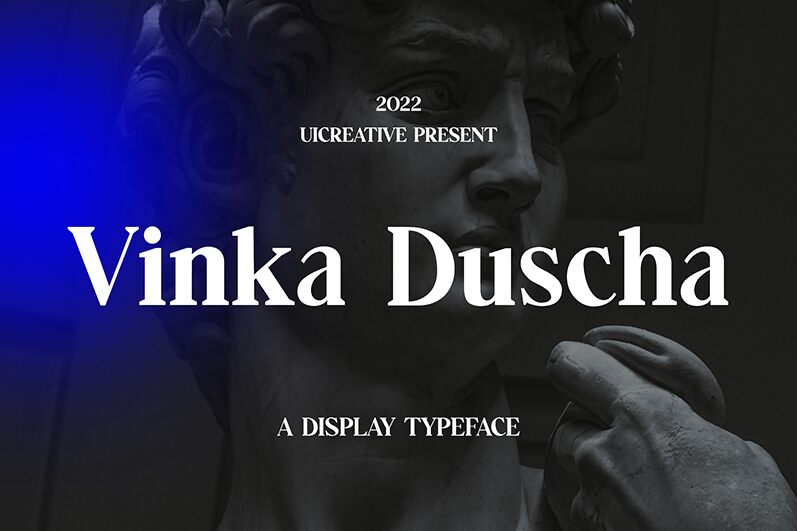
Vinka Duscha
Vinka Duscha, a distinctive serif font designed by UI Creative, captivates with its refined elegance and timeless allure. This typeface exudes a classic charm, seamlessly blending traditional forms with a modern sensibility. The delicate serifs and graceful curves convey a sense of sophistication, while the balanced proportions and clear letterforms ensure exceptional readability. Vinka Duscha's versatile personality lends itself to a wide range of applications, from editorial layouts and branding to signage and packaging design. Its versatility and visual appeal make it a top choice for designers seeking to infuse their projects with a touch of refined sophistication.
Vinka Duscha's versatility shines through its ability to adapt to diverse design contexts. Its clean, elegant aesthetic complements both classic and contemporary styles, making it an ideal choice for editorial design, such as book and magazine covers. The font's legibility and timeless appeal also make it a suitable option for branding and identity projects, where it can help establish a sense of refined professionalism. Additionally, Vinka Duscha's strong presence and distinctive character make it a compelling selection for signage, packaging, and other visual communication applications that require a touch of timeless elegance.